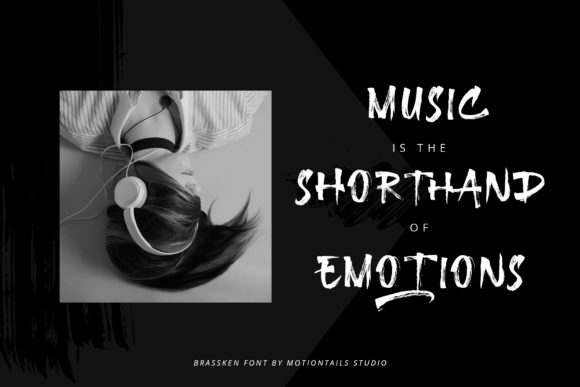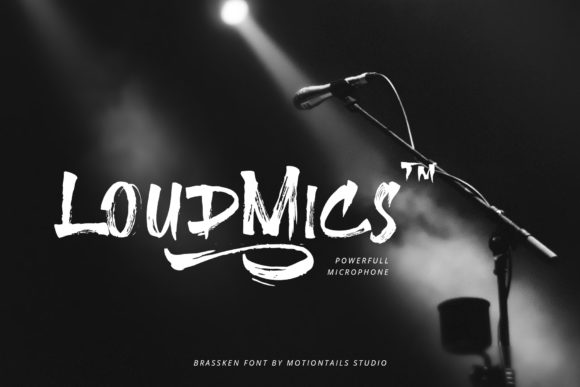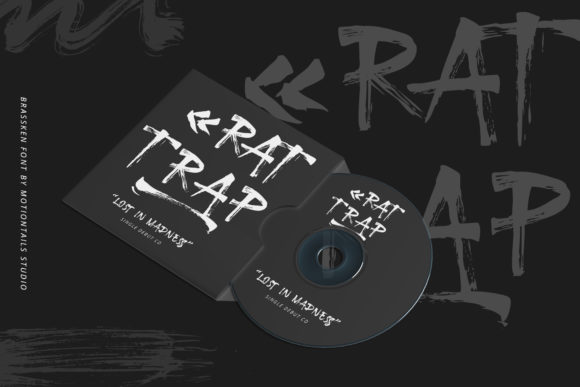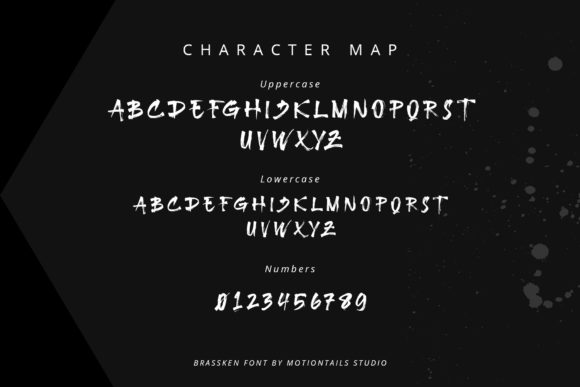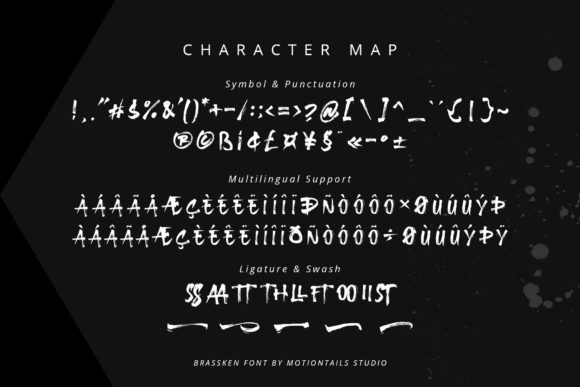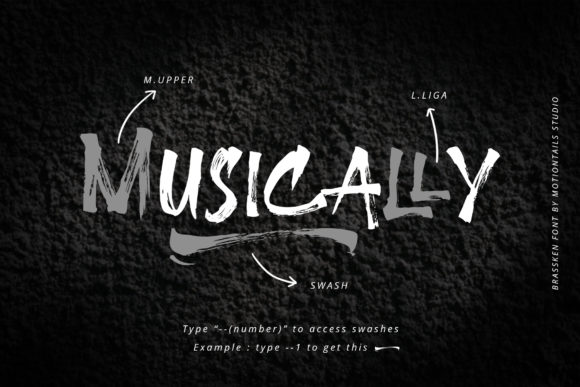
Unleash the Spooky Spirit with Brassken Font: A Brushed and Dramatic Display Font
Are you looking for a font that will add a touch of eeriness and drama to your designs? Look no further than the Brassken Font. This brushed and dramatic display font is perfect for creating spooky and eye-catching designs, especially for Halloween. With its bold and rugged texture, Brassken Font is sure to make each of your Halloween designs come alive!
What is Brassken Font?
Brassken Font is a unique and versatile font that is designed to add a touch of horror and drama to your designs. Its brushed texture gives it a rough and rugged look, making it perfect for creating bold and eye-catching headlines. The font is designed to be used for display purposes, making it ideal for titles, headings, and other design elements that require a bold and attention-grabbing font.
Key Features of Brassken Font
- Brushed Texture: The brushed texture of Brassken Font gives it a unique and rugged look that is perfect for creating bold and eye-catching designs.
- Dramatic Display Font: The font is designed to be used for display purposes, making it ideal for titles, headings, and other design elements that require a bold and attention-grabbing font.
- Spooky and Eerie: The font’s bold and rugged texture makes it perfect for creating spooky and eerie designs, especially for Halloween.
- Versatile: Brassken Font can be used for a variety of design projects, including posters, flyers, brochures, and more.
Why Use Brassken Font?
There are many reasons why you should use Brassken Font for your design projects. Here are a few:
- Adds a Touch of Horror: The font’s bold and rugged texture adds a touch of horror and drama to your designs, making them perfect for Halloween and other spooky-themed projects.
- Eye-Catching: The font’s unique and rugged texture makes it perfect for creating eye-catching headlines and titles that grab attention.
Design Ideas Using Brassken Font
Here are a few design ideas that you can use Brassken Font for:
- Halloween Posters: Use Brassken Font to create spooky and eye-catching posters for Halloween parties and events.
- Horror Movie Titles: Use the font to create bold and dramatic titles for horror movies and other spooky-themed projects.
- Crafting Projects: Use Brassken Font to add a touch of horror and drama to your crafting projects, such as Halloween-themed cards and decorations.
- Flyers and Brochures: Use the font to create eye-catching flyers and brochures for spooky-themed events and projects.
Tips for Using Brassken Font
Here are a few tips for using Brassken Font:
- Use it for Display Purposes: Brassken Font is designed to be used for display purposes, so use it for titles, headings, and other design elements that require a bold and attention-grabbing font.
- Experiment with Colors: The font looks great in bold and bright colors, so experiment with different colors to find the one that works best for your design.
- Pair it with Other Fonts: Brassken Font can be paired with other fonts to create a unique and interesting design.
In conclusion, Brassken Font is a unique and versatile font that is perfect for creating spooky and eye-catching designs. Its brushed texture and dramatic display font make it ideal for titles, headings, and other design elements that require a bold and attention-grabbing font. With its high-quality design and ease of use, Brassken Font is a great addition to any designer’s toolkit.